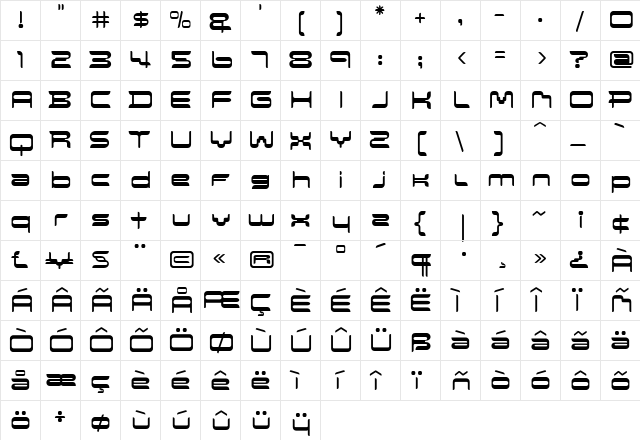
Evolution Regular
| Foundry | \ Gravy Fonts\ by Margo Chase Design |
Evolution is a composed and adaptable typeface that performs quietly and consistently across a wide range of design contexts.